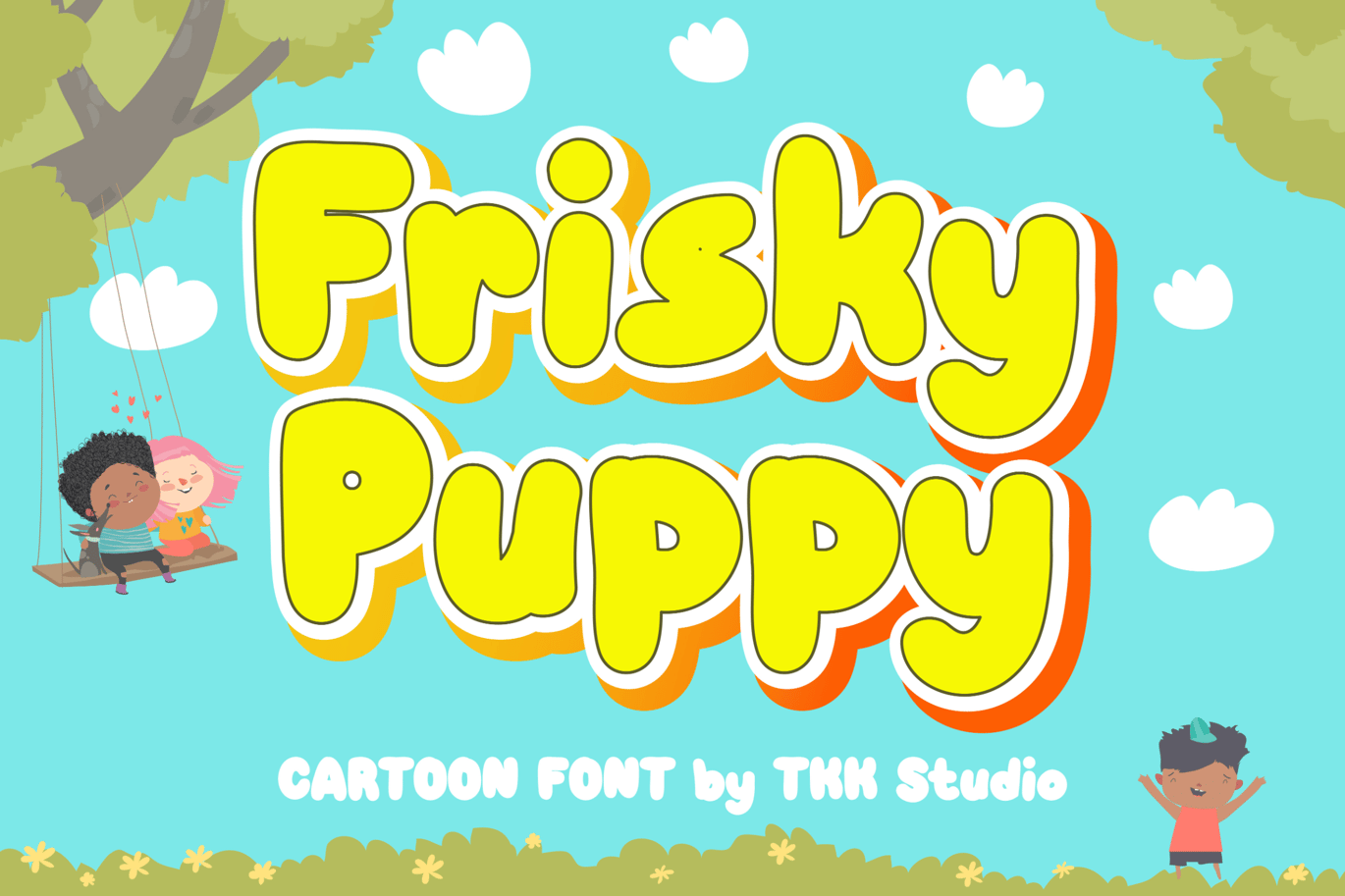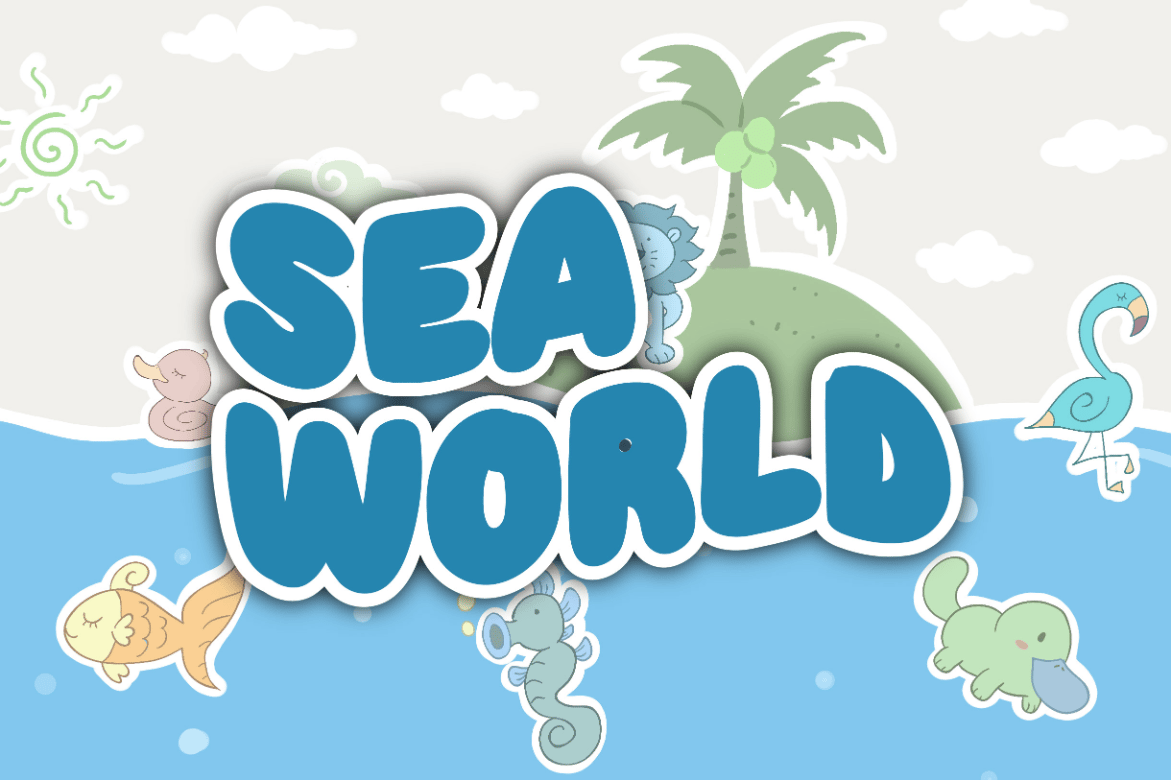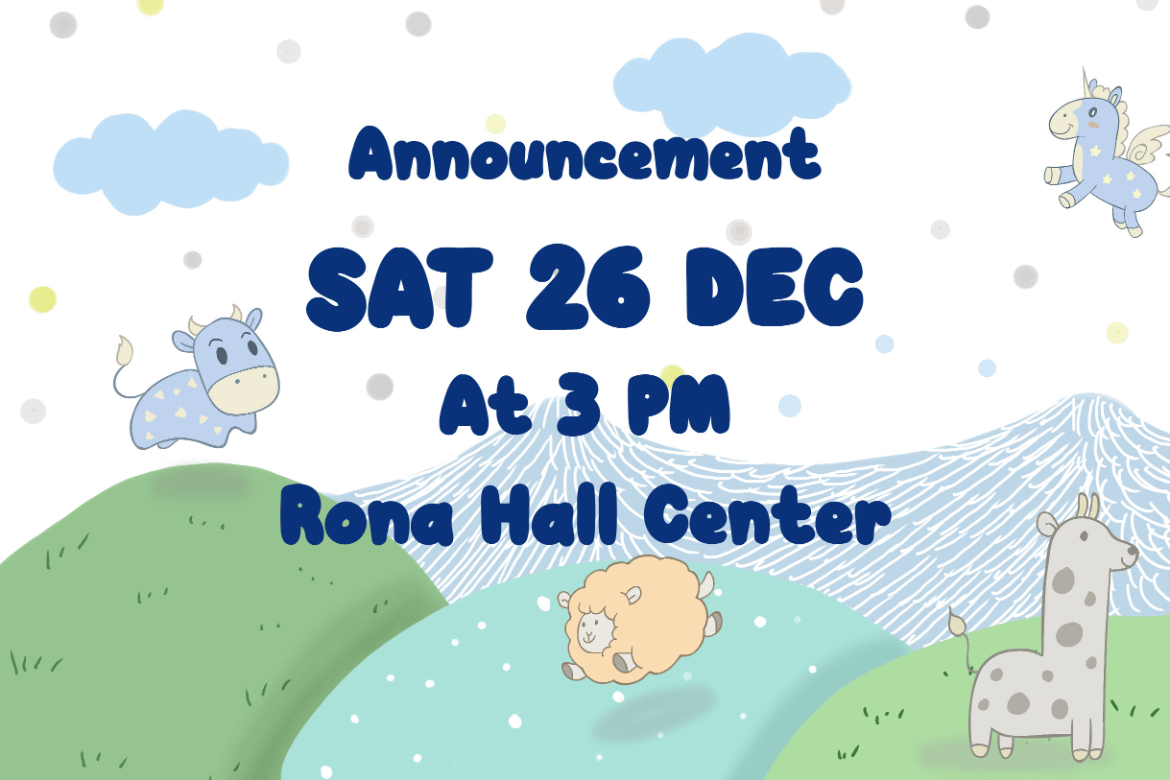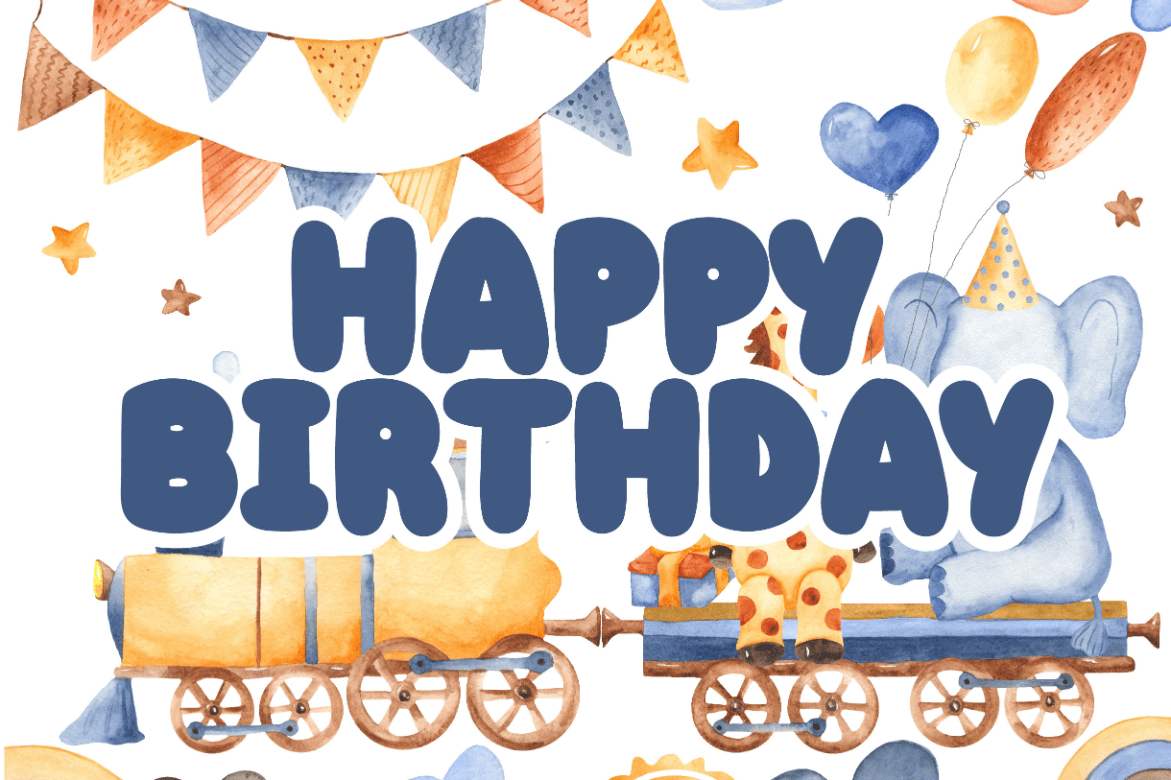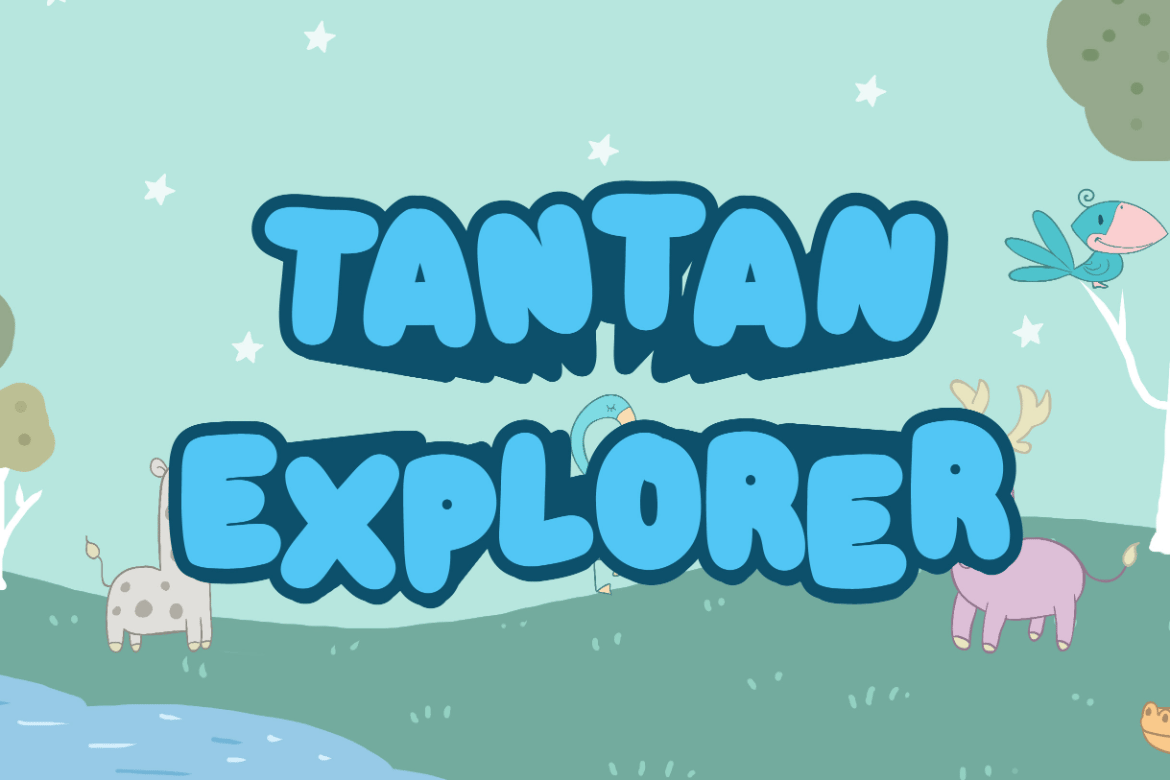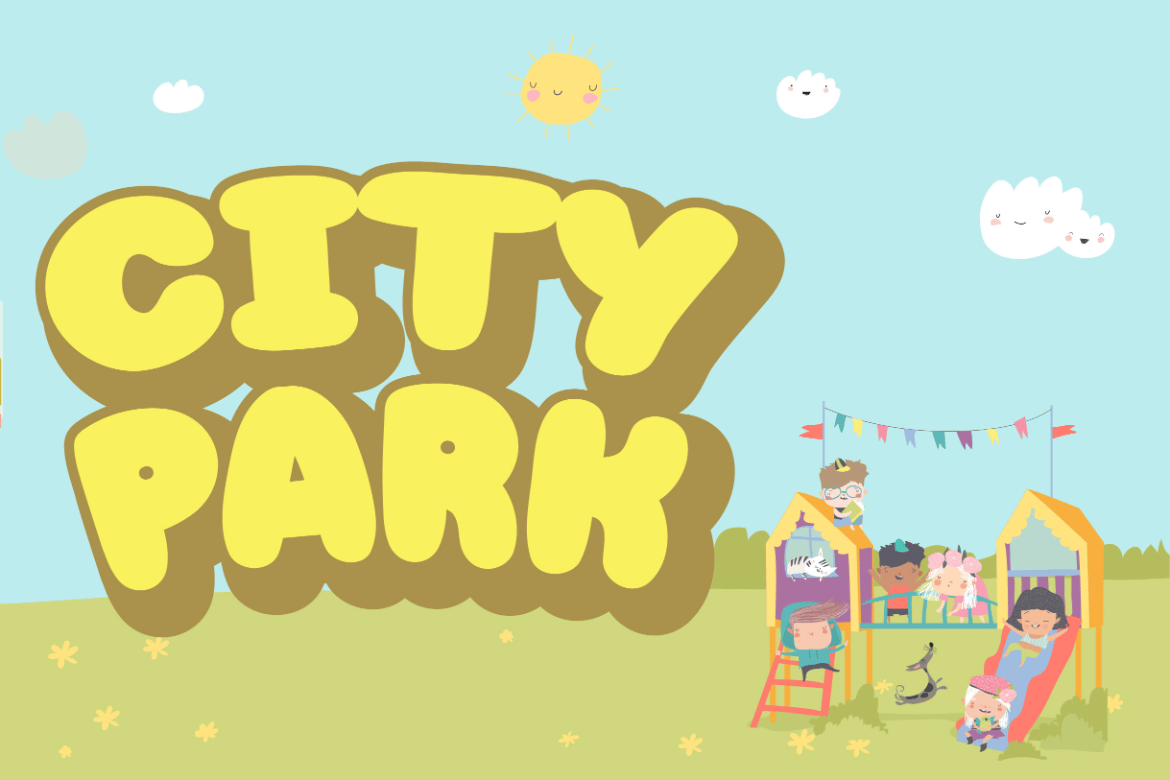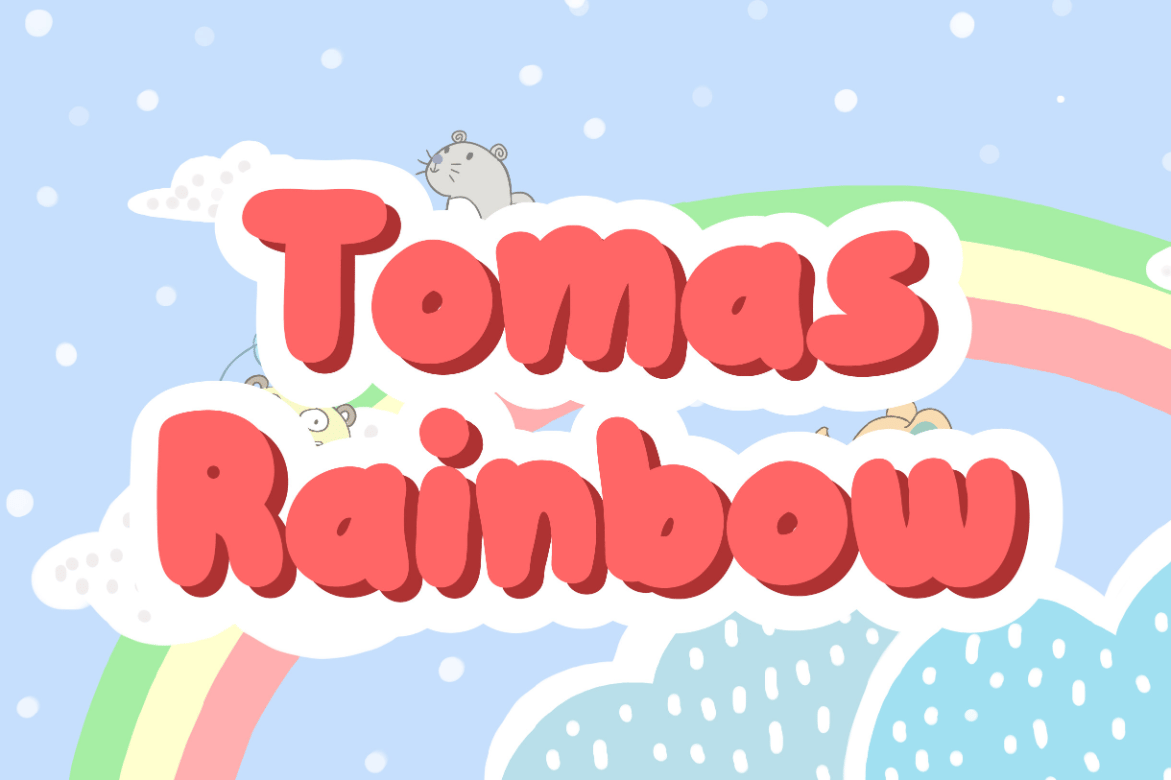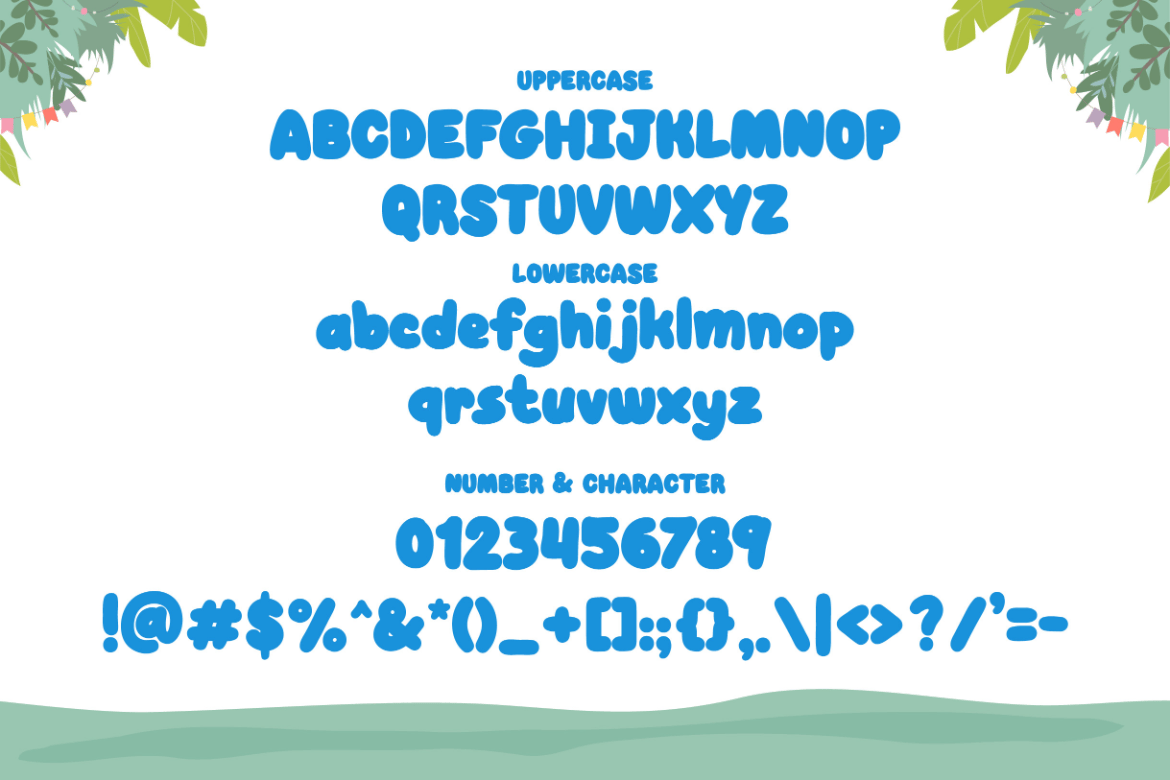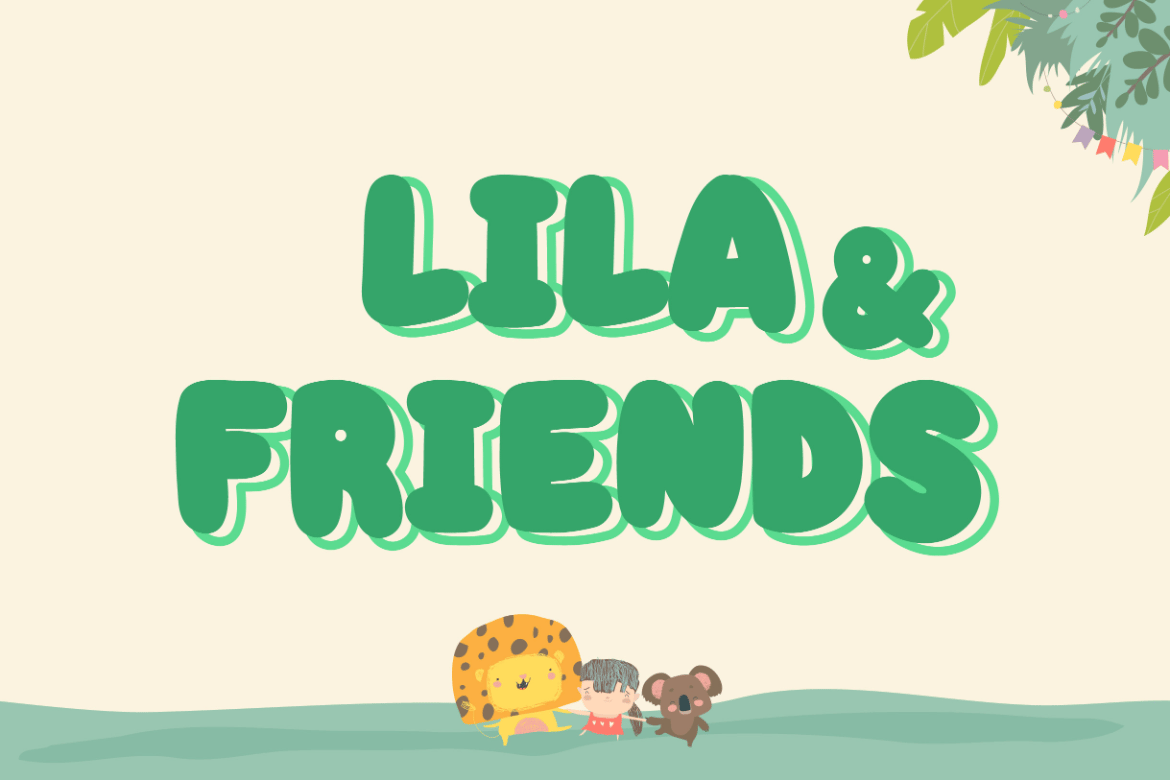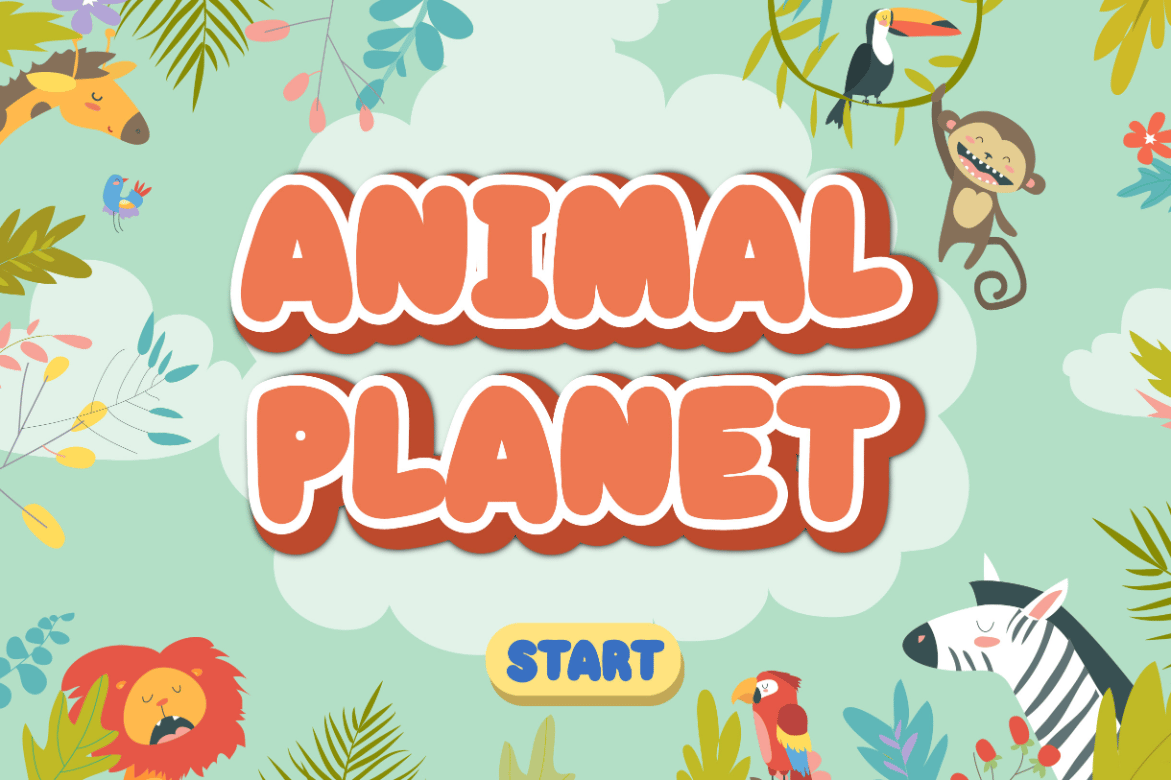
Frisky Puppy – Cartoon Font
It has a happy and fun aura all over it. It create happiness. It will put smile in every word written.
Suit perfectly for your doodle illustration font, scribble book, children related projects, t-shirt for kids writing, food and beverage product commercial,a billboard, a catchphrase stickers, youtube covers, youtube thumbnails, social media page covers and so on…